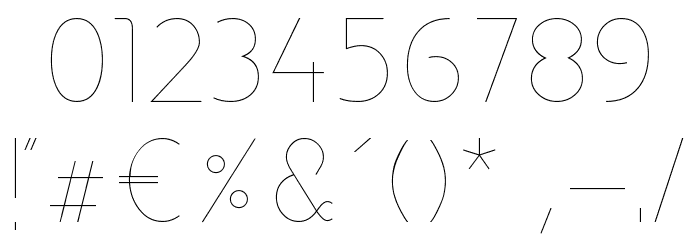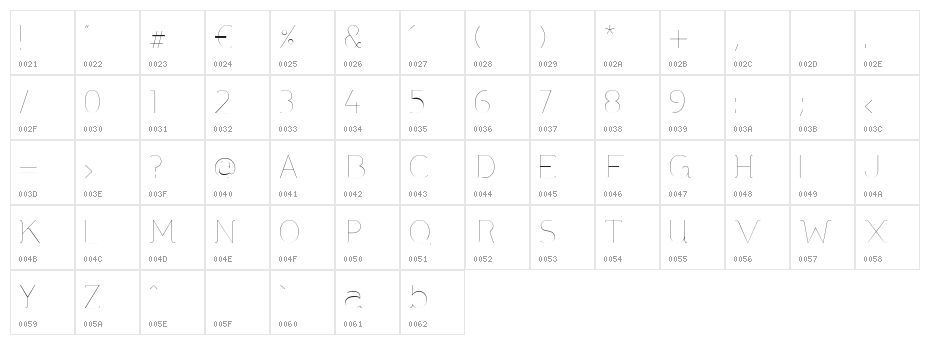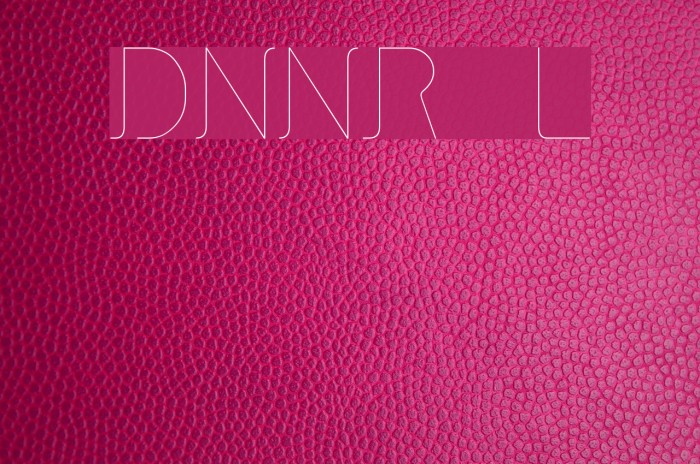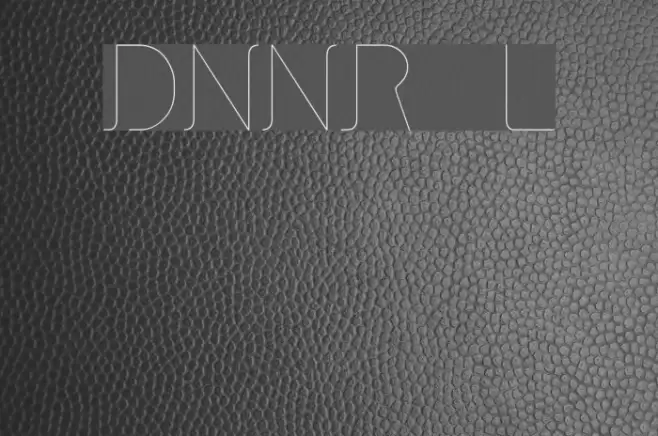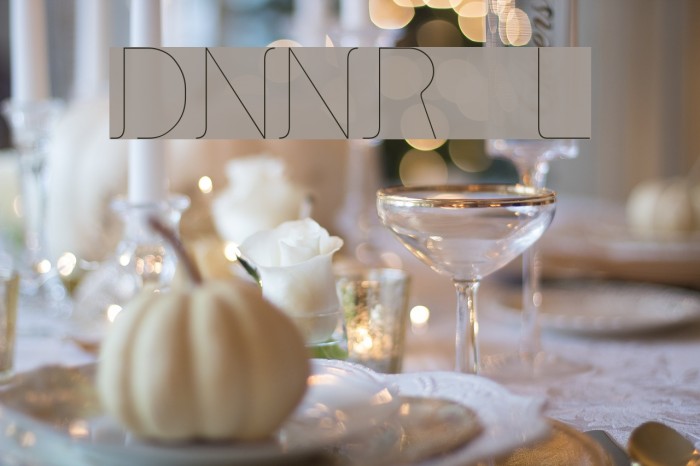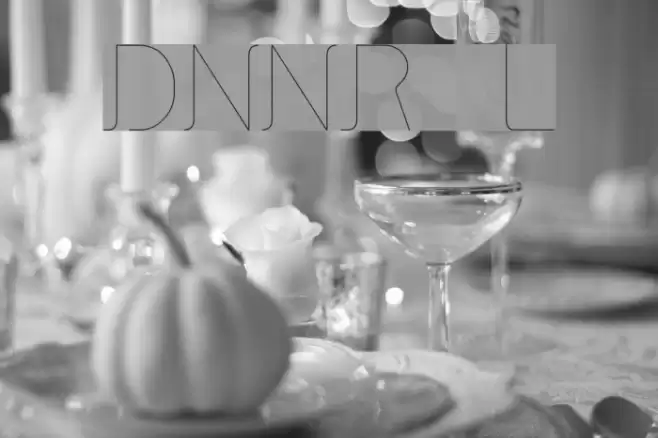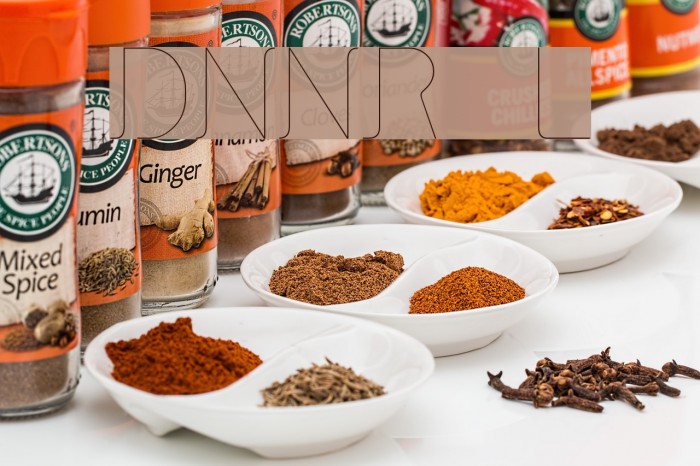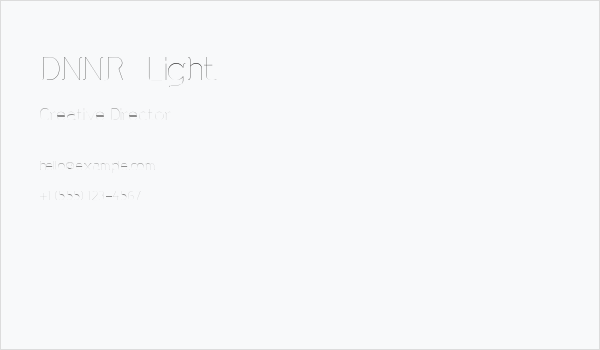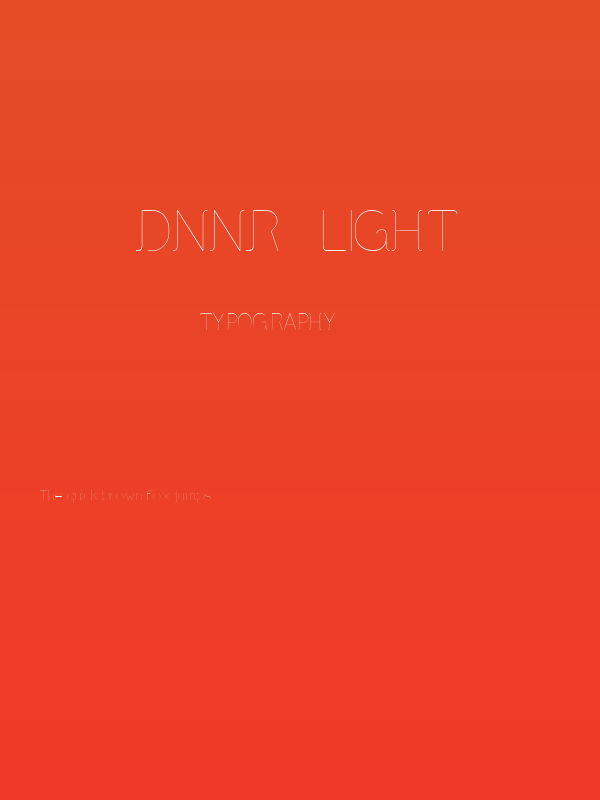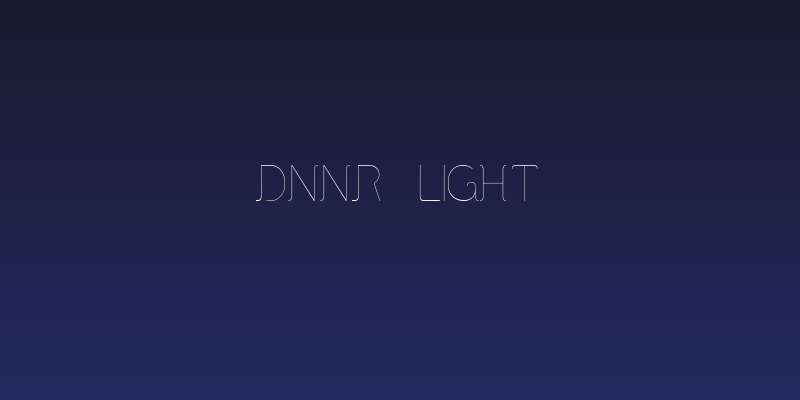
DNNR Light Font
DNNR Light Description
This font features a sleek and modern design with a minimalist aesthetic. The characters are formed with thin, consistent lines, giving it a light and airy appearance. The uppercase and lowercase letters maintain a uniform height, contributing to a clean and organized look. The numerals and special characters are crafted with the same precision, ensuring a cohesive style throughout. The font's simplicity makes it versatile for various design applications, while its contemporary feel adds a touch of elegance.
| Proposed Projects | Ideal for modern branding, minimalist posters, elegant invitations, and contemporary web design. |